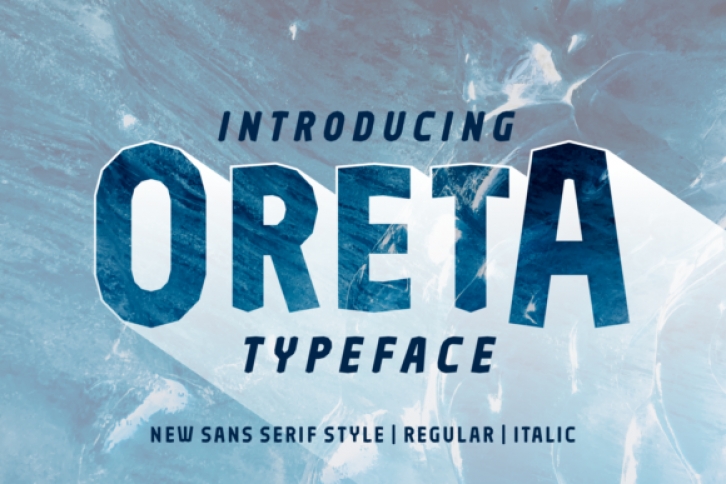
The Oreta is an amazing sans serif. It’s letters look like they were cut out from paper which gives it an unique and striking look.
It comes in two styles; regular and italic, which gives you the opportunity to create multiple unique designs.